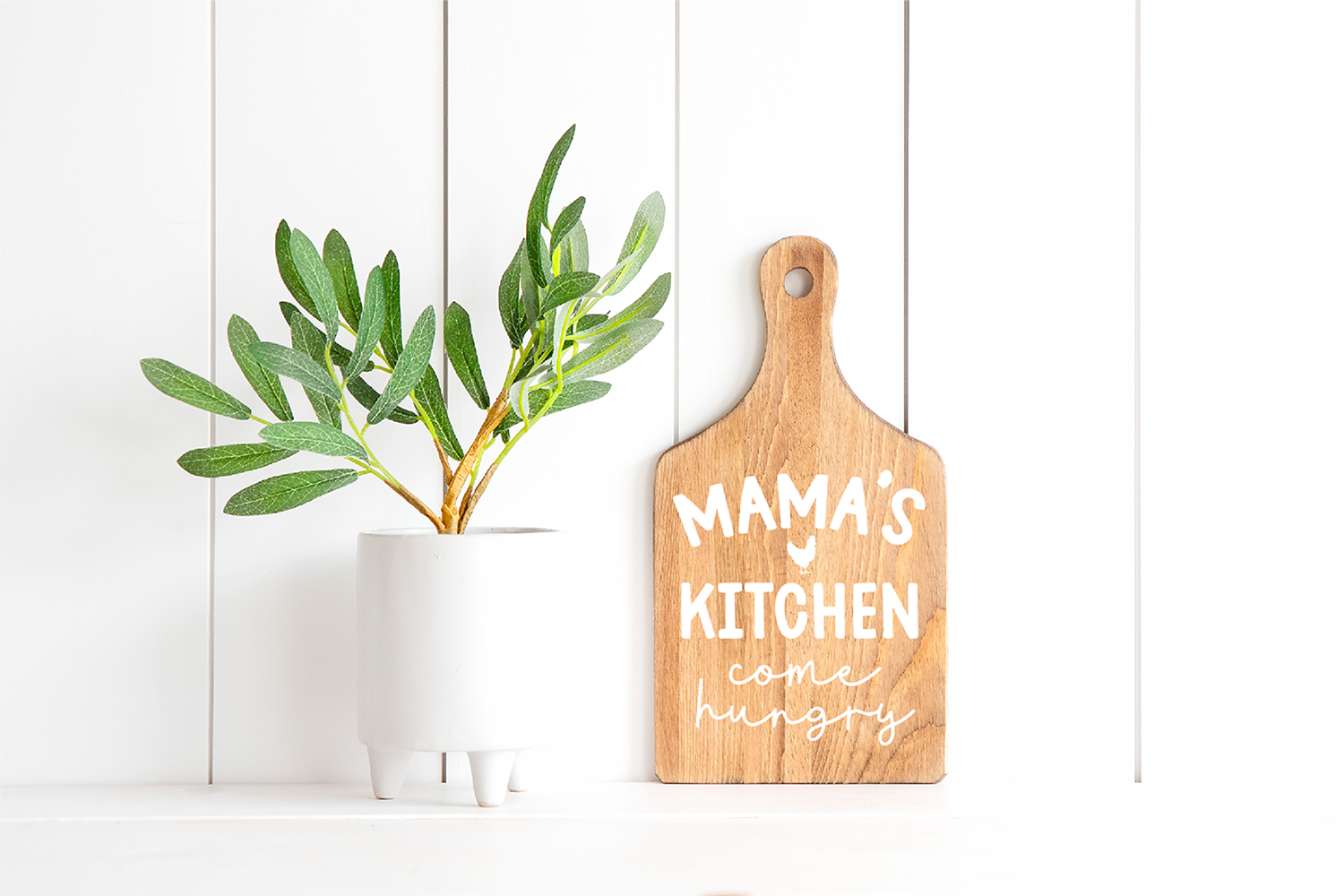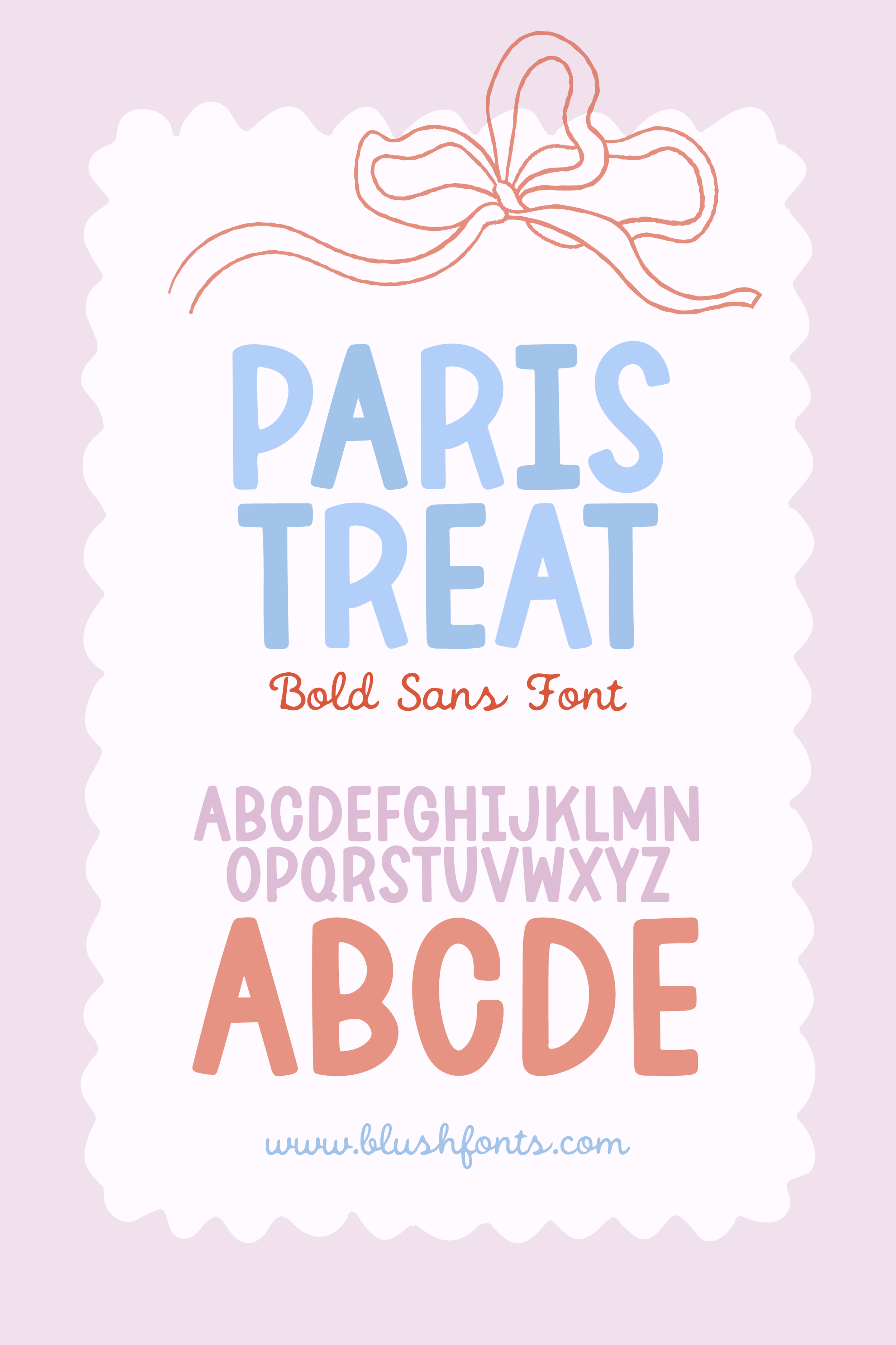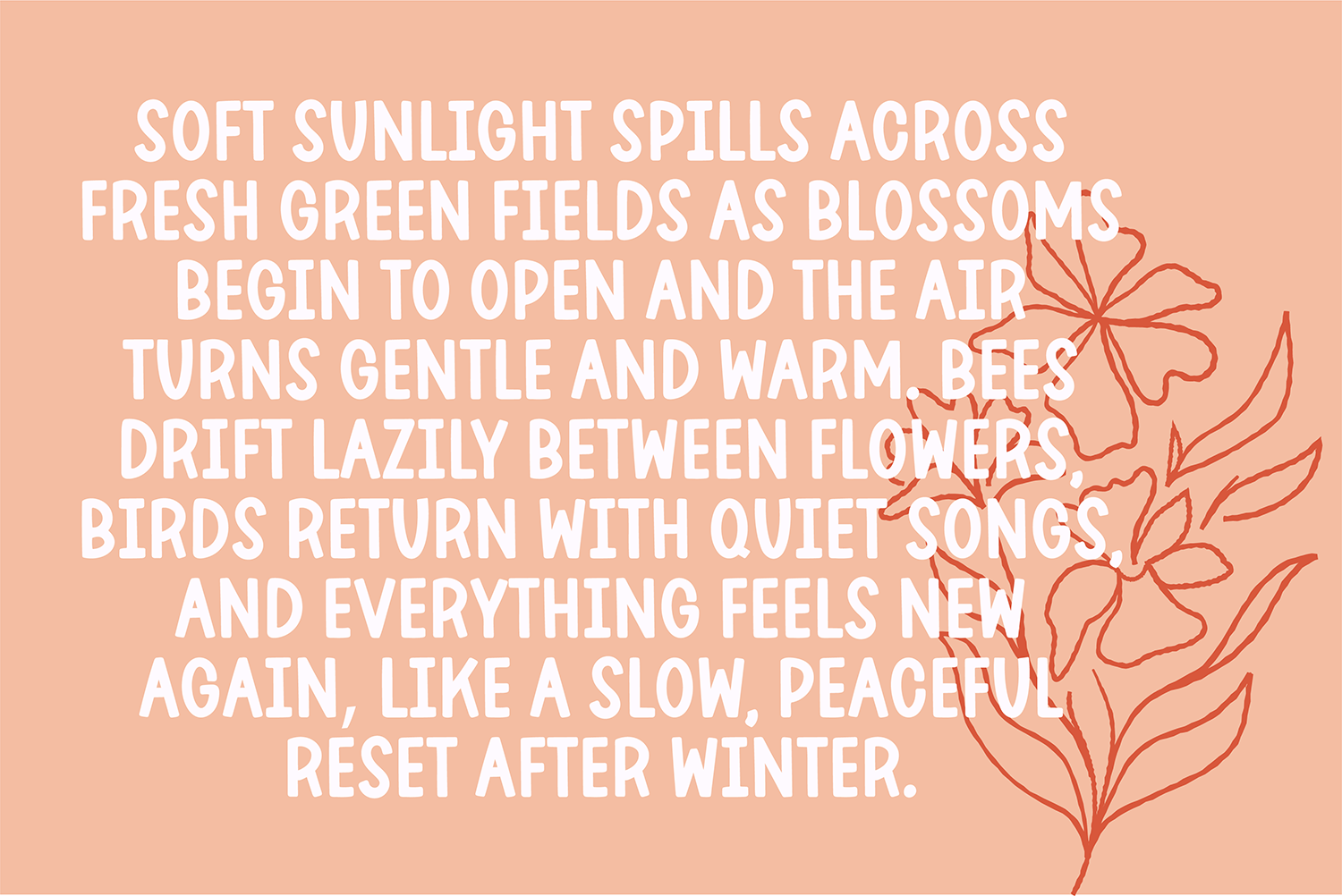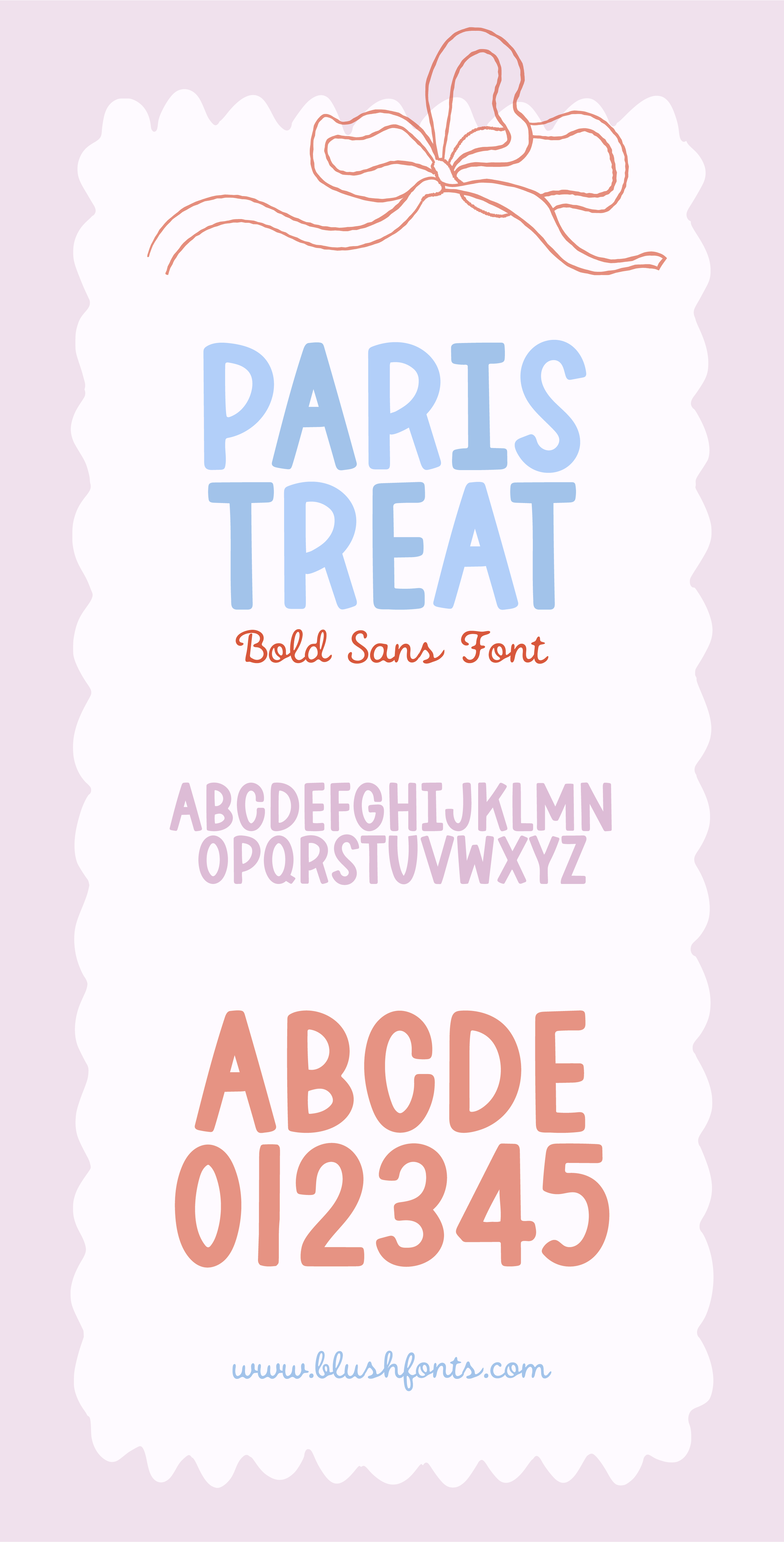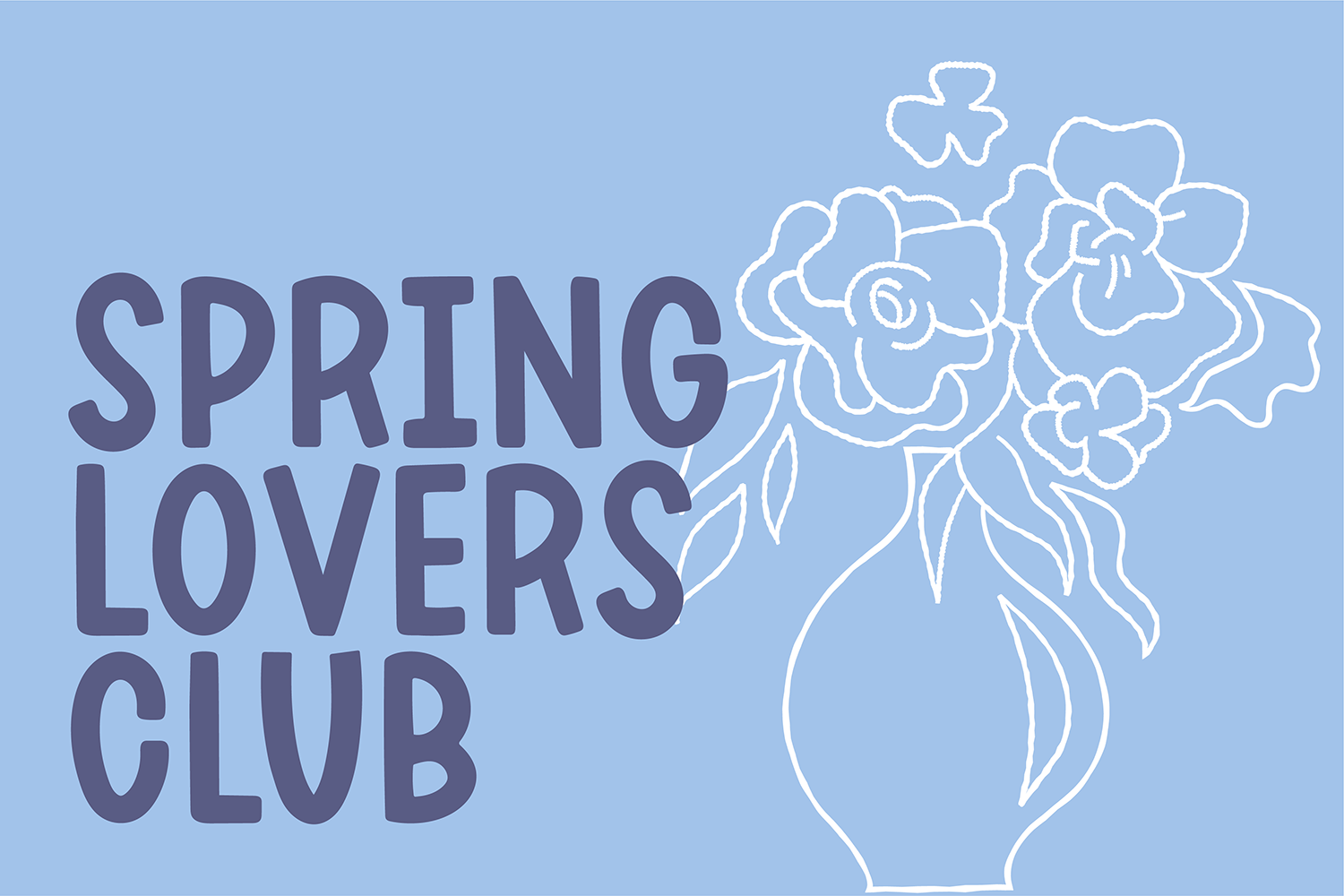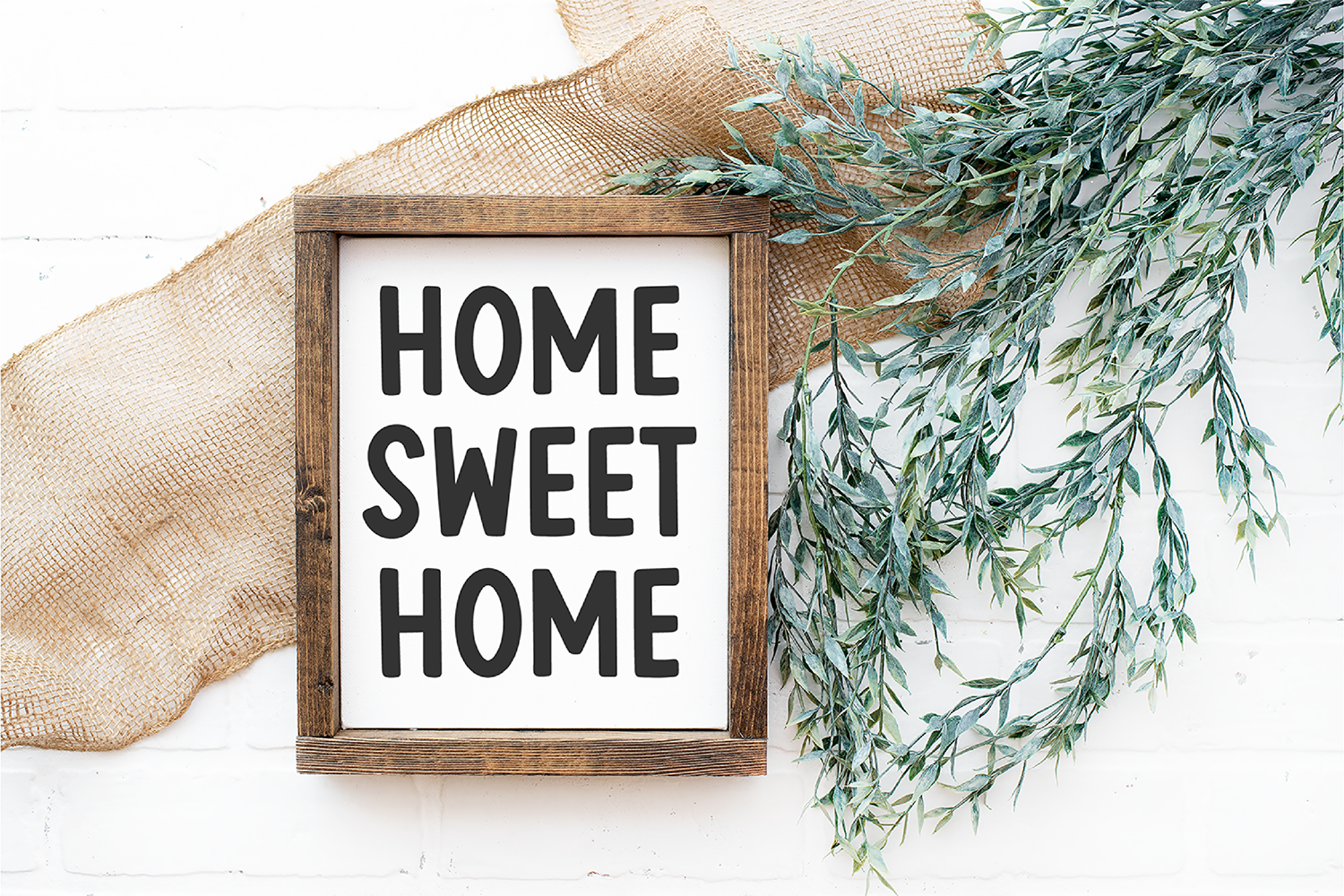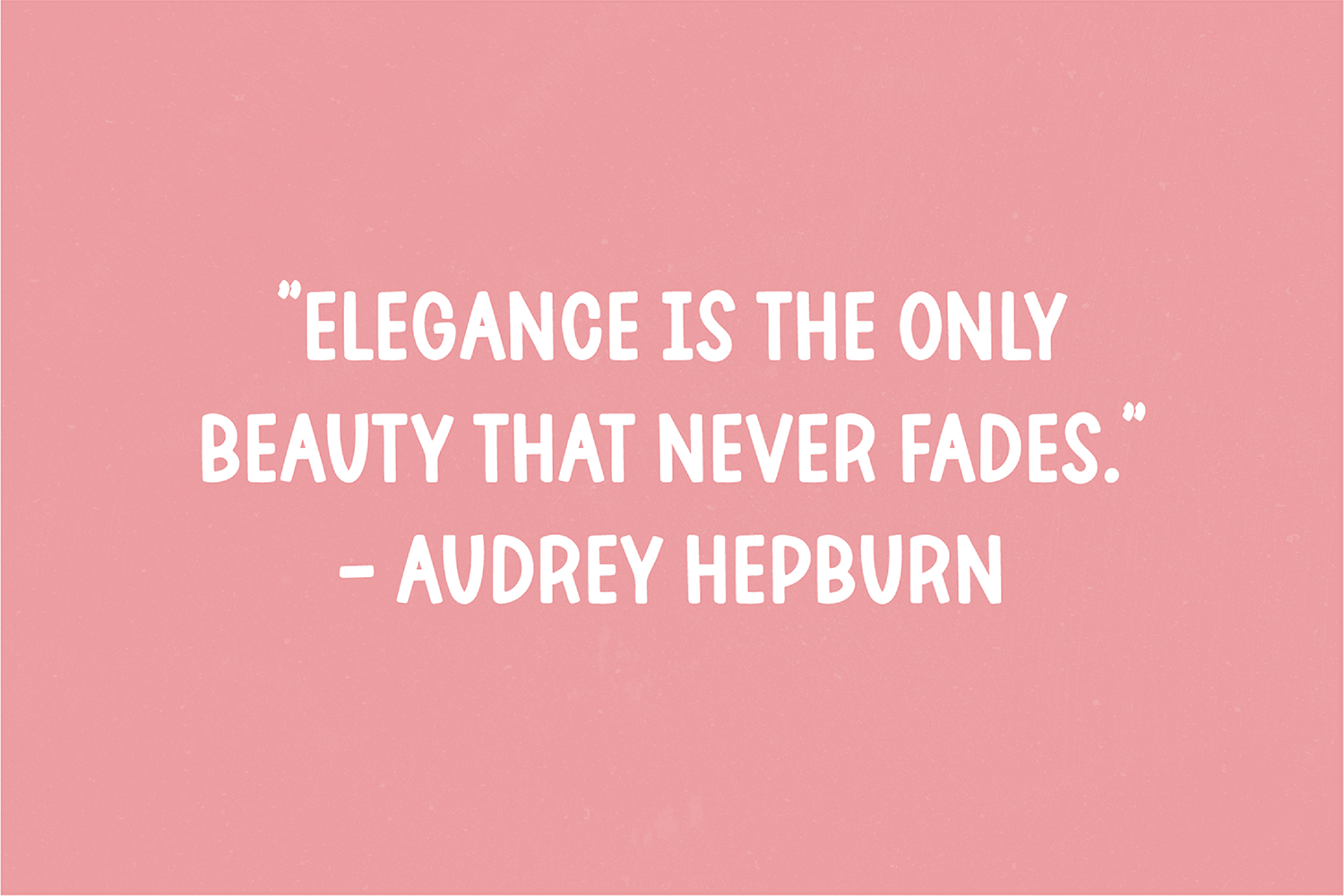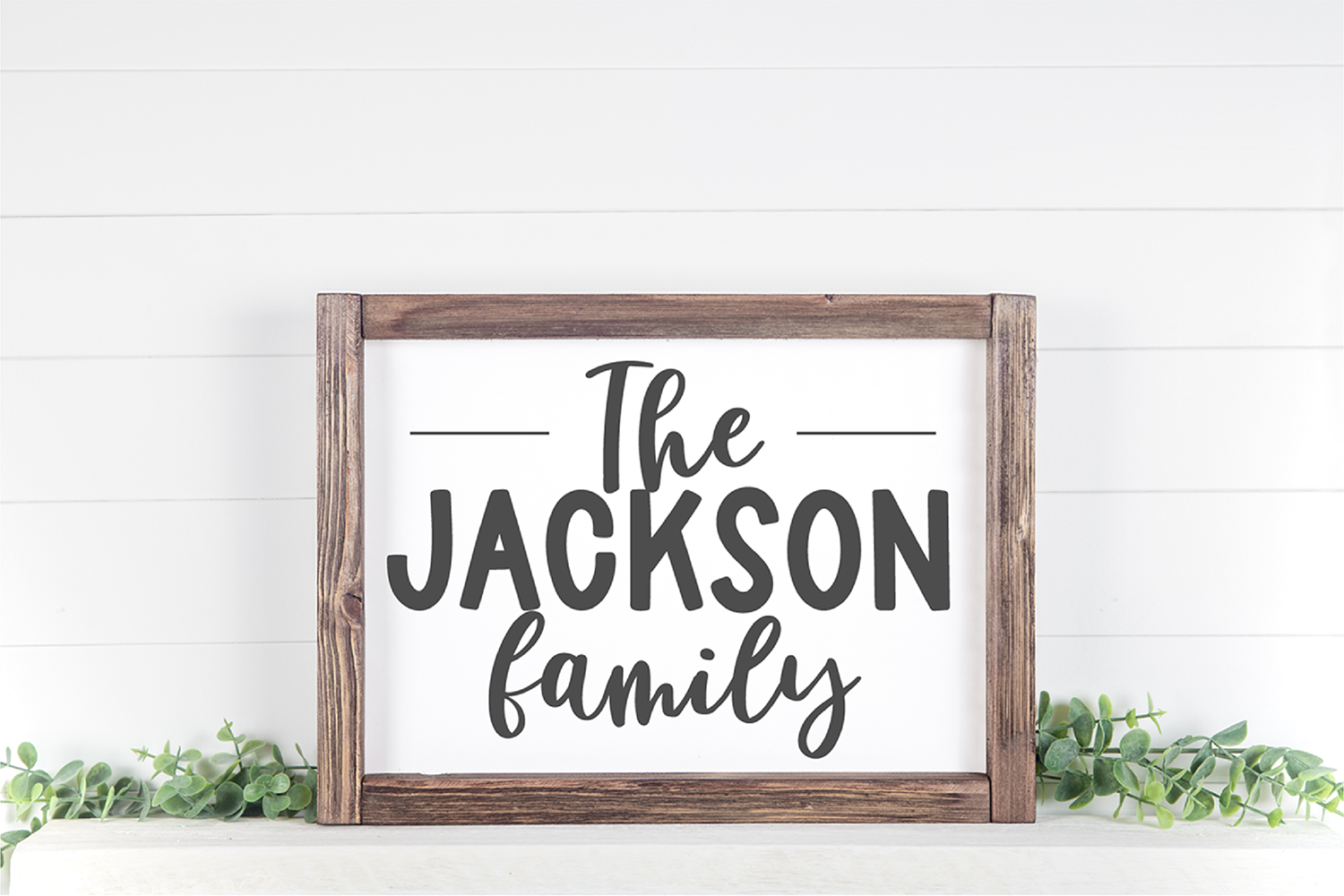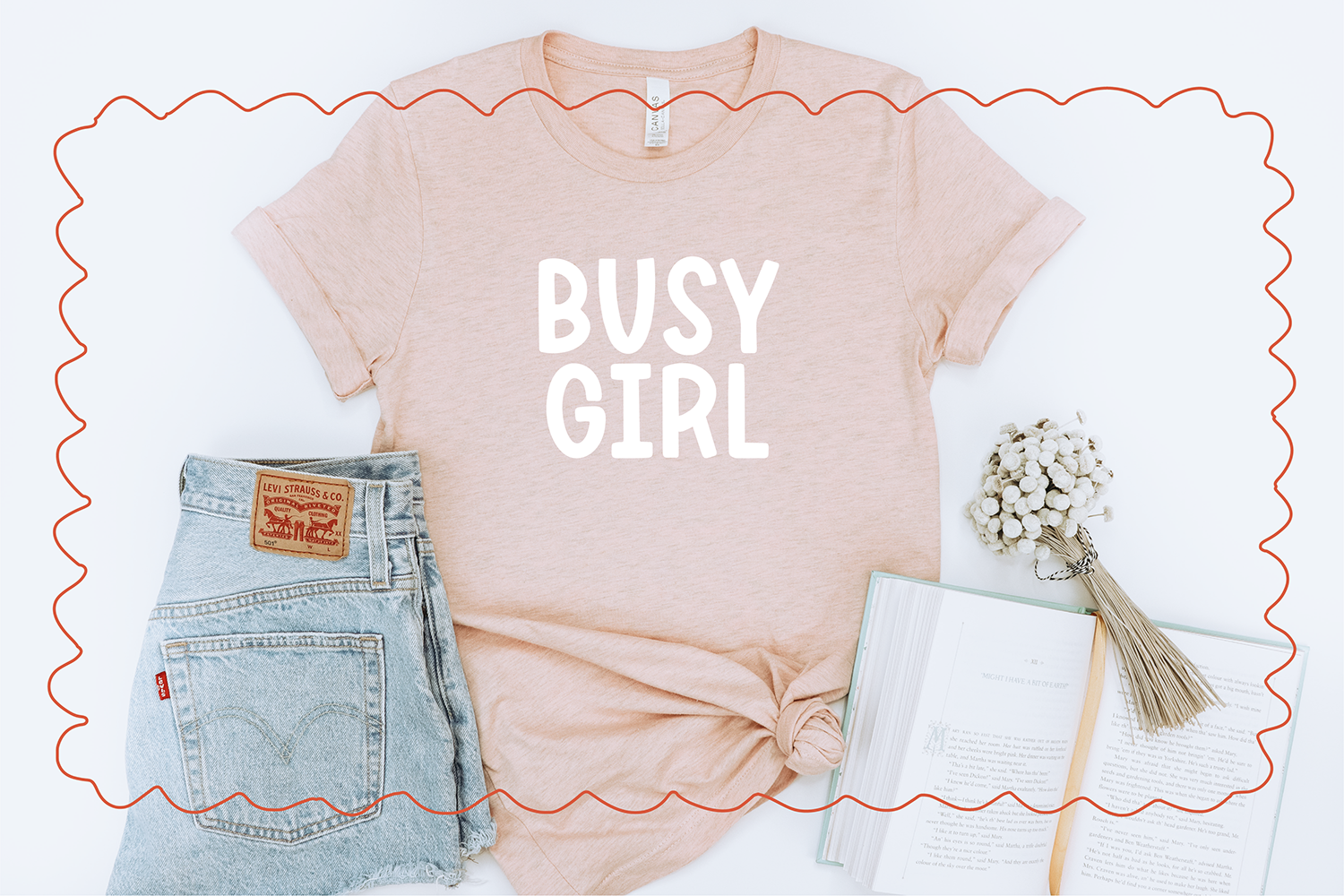
Paris Treat Bold | Chunky Bold Font | Thick Retro Display Font for Cricut, Canva, T-Shirts, Logos, Stickers, Social Media
This chunky bold font is perfect for Cricut, Canva, and eye-catching design projects. With thick, heavy letters and a playful, bold style, it’s ideal for t-shirts, stickers, logos, social media graphics, and standout branding.
Designed to grab attention, this font features strong shapes and smooth curves that cut cleanly on Cricut and Silhouette machines. Whether you're creating trendy merch, bold headlines, or fun graphic designs, this font delivers a confident, modern look that pops on any background.
Perfect for:
– Cricut + Silhouette (vinyl, decals, shirts)
– T-shirt designs + merch
– Stickers + SVG projects
– Canva + social media graphics
– Logos + branding + packaging
– Bold headlines + display text
What’s included:
– All caps letters
– Numbers + punctuation
– Multilingual Characters
This font is perfect if you want a thick, playful, and bold style that stands out instantly and works seamlessly across all your creative projects.